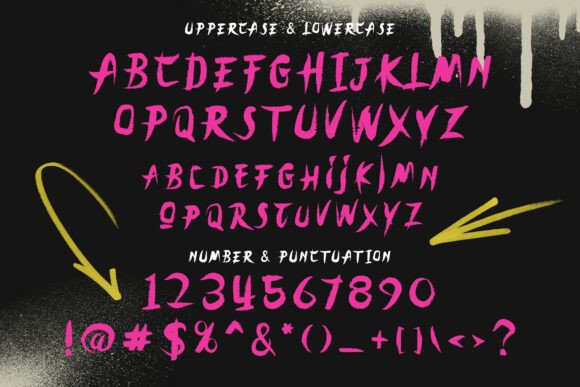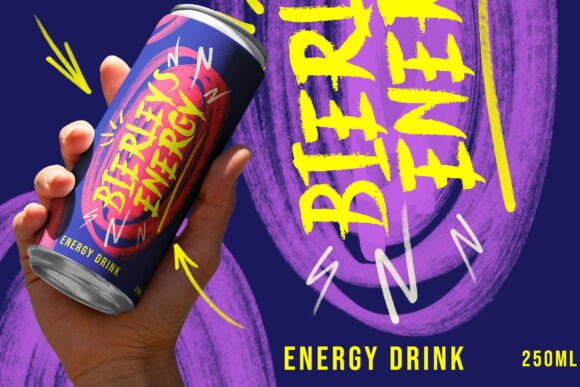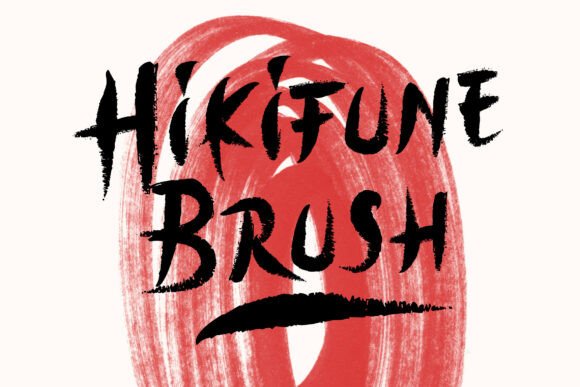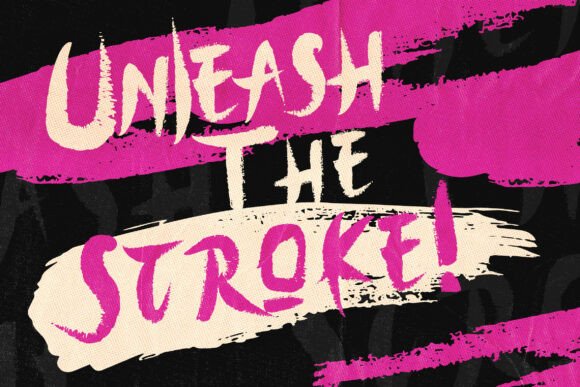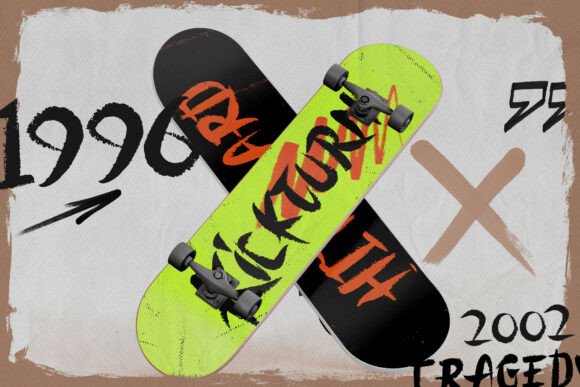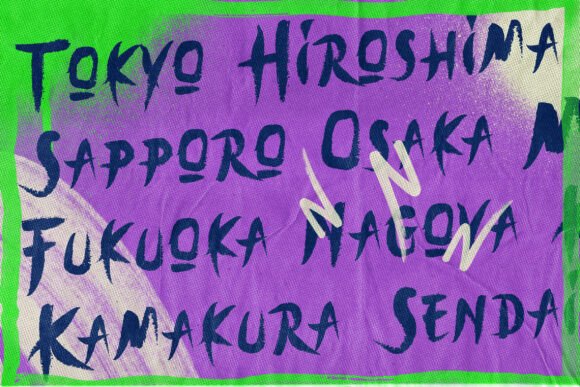
Unleash the Power of ENERGY RUSH FONT: A Dynamic Dry Brush Display Font
Immerse yourself in the dynamic and compelling world of ENERGY RUSH, an expressive dry brush display font that embodies the raw energy of traditional Japanese brushwork. Each digitized letterform echoes the expressive, spontaneous spirit of hand-drawn art, bringing a unique and captivating aesthetic to your designs.
The Inspiration Behind ENERGY RUSH
ENERGY RUSH is inspired by the ancient art of Japanese brushwork, where the brush dances across the paper, leaving behind a trail of expressive strokes and natural imperfections. The font’s creator sought to capture the essence of this traditional craft and translate it into a digital format, resulting in a font that is both authentic and innovative.
Characteristics of ENERGY RUSH
ENERGY RUSH seamlessly bridges the gap between manual craft and digital design, unveiling the intrinsic beauty of natural imperfections and dry textures. The font’s bold strokes and liberating ink flow mimic the uncontrolled beauty of the hand and brush, transforming even the most mundane texts into vibrant works of art.
Expressive Letterforms
Each letterform in ENERGY RUSH is a masterful blend of traditional brushwork and modern digital design. The font features a wide range of characters, including uppercase and lowercase letters, numbers, and punctuation marks, all of which are meticulously crafted to evoke the spirit of hand-drawn art.
Dry Brush Texture
One of the standout features of ENERGY RUSH is its dry brush texture, which gives the font a tactile, organic feel. The texture is reminiscent of traditional Japanese paper, adding a layer of depth and authenticity to your designs.
Uses for ENERGY RUSH
ENERGY RUSH is a versatile font that can be used in a variety of creative projects, including:
- Logos and branding: Add a touch of elegance and sophistication to your brand identity with ENERGY RUSH.
- Posters and flyers: Create eye-catching promotional materials that showcase your message in a bold and dynamic way.
- Digital art and illustration: Use ENERGY RUSH to add a unique and expressive touch to your digital artwork.
- Packaging design: Elevate your packaging designs with the bold, hand-crafted aesthetic of ENERGY RUSH.
Why Choose ENERGY RUSH?
So why choose ENERGY RUSH over other fonts? Here are just a few reasons:
- Unique aesthetic: ENERGY RUSH offers a distinctive and captivating aesthetic that will set your designs apart.
- High-quality design: Each letterform is meticulously crafted to ensure a high level of quality and consistency.
- Versatility: ENERGY RUSH can be used in a wide range of creative projects, from logos and branding to digital art and illustration.
| Font Name | Energy Rush Font |
| Author | Angin Studio |
Step into an exciting symphony of style and spirit, where fonts come alive with ENERGY RUSH. This dynamic dry brush display font is the perfect choice for designers and crafters looking to add a touch of elegance and sophistication to their creative projects. With its unique aesthetic, high-quality design, and versatility, ENERGY RUSH is sure to become a go-to font in your collection.